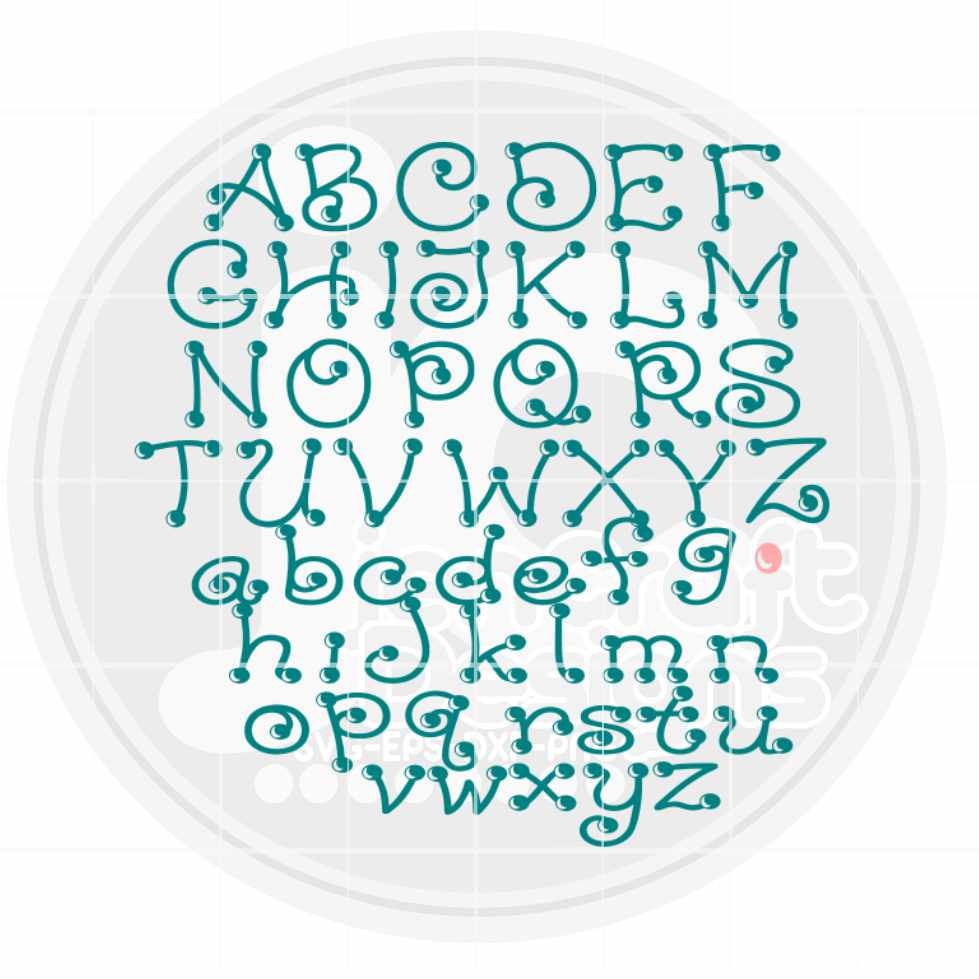
Dot Alphabet SVG | Alpha Pack Letters SVG EPS DXF
Add a fun, playful touch to your projects with this Dot Alphabet SVG Alpha Pack — a full set of polka dot letters available in SVG, EPS, and DXF formats. Perfect for makers creating monogram shirts, nursery décor, signs, and personalized gifts with a bold dotted style. Exclusively designed by JenCraft, with clean cuts and layered files for easy customization.
- Full dot alphabet letter set (A–Z)